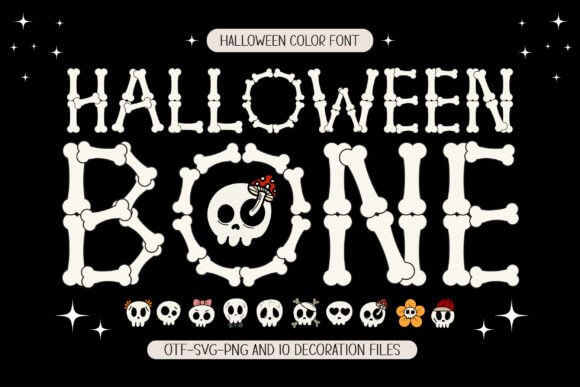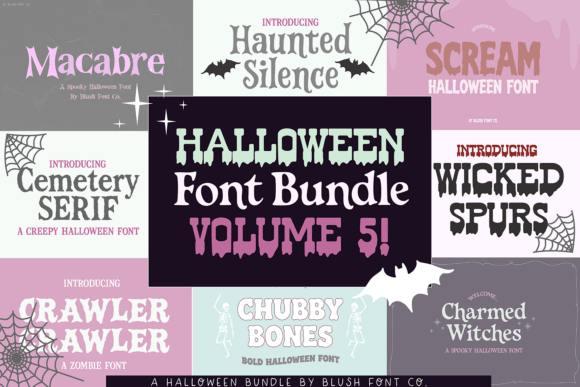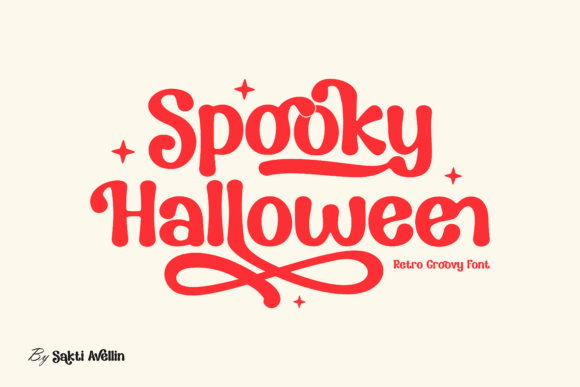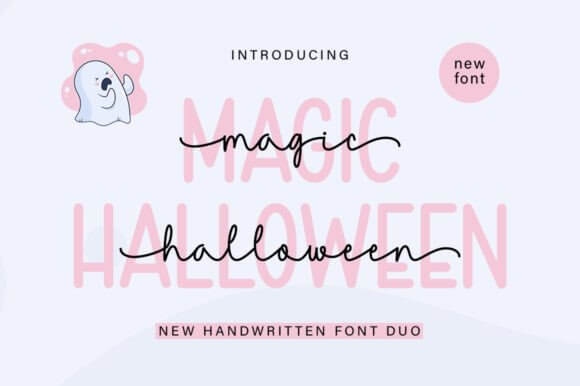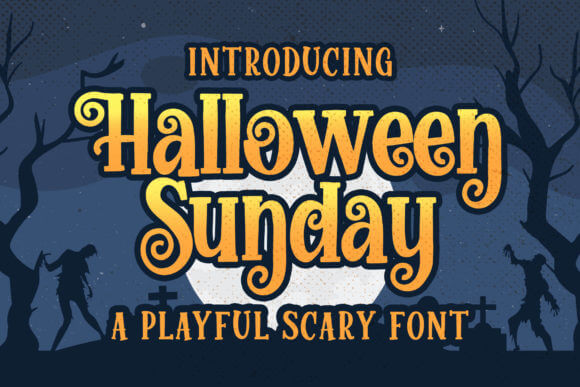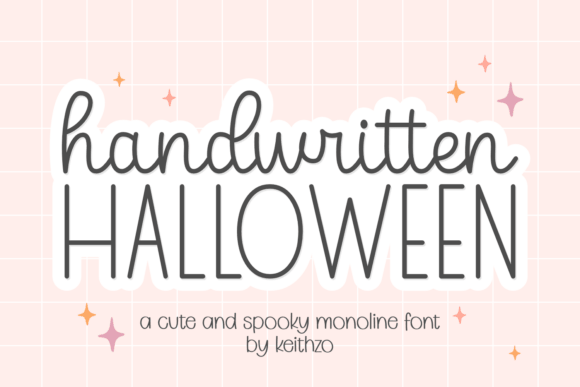
Picking halloween fonts sounds easy until your flyer looks cheesy, your mug design feels flat, and your treat tags disappear from three feet away. Type does the heavy lifting. It sets the scare level, the cute factor, the retro mood, even the whole tone of a product line before anyone reads a word. At Increobox, we pulled together 16 styles that cover bone lettering, drips, webbed details, groovy curves, handwritten notes, and old horror energy, so you can match the right alphabet to the right job fast. Some fit bold headers, some shine on stickers, party invites, classroom printables, or branding. If you want cleaner choices, stronger halloween typography, and fewer design regrets . . . start here.
Halloween Bone – Skeletal Display Font
Halloween Bone leans straight into the obvious gimmick, and honestly that is why it works. The bone-shaped forms give you a loud spooky display font for shirt slogans, party signs, and kid-friendly horror graphics where subtlety would just kill the fun. We would keep it for short words and big headers, because the novelty hits hard, fast, done.
Best Uses For This Font
- Bone Logo Headers – Make short brand names feel playful and weird.
- Haunted Favor Tags – Add instant theme to candy bags and small labels.
- Skeleton T-Shirt Art – Turn simple sayings into punchy apparel graphics.
- Spooky Menu Boards – Dress up party food signs without extra illustration.
Halloween Bundle Volume 5 – Mixed Font Set
If you hate choosing one style and moving on, Halloween Bundle Volume 5 fixes that headache. This halloween font bundle gives you room to build a whole seasonal set – social posts, sticker sheets, mugs, sale graphics – without everything looking cloned. We think bundles like this save time for busy shop owners, and yeah, October gets messy.
Best Uses For This Font
- Seller Shop Banners – Keep storefront graphics varied but still cohesive.
- Mixed Sticker Packs – Use different moods across one printable sheet.
- Trick-Or-Treat Print Sets – Build matching tags, signs, and inserts fast.
- Fast Social Graphics – Swap styles quickly for promos and countdown posts.
Spooky Halloween – Creepy Lettering Style
Spooky Halloween looks built for tension. The shapes feel sharp, restless, a little feral, which makes it a smart creepy lettering pick for covers, haunted event promos, or quotes that need bite. Let the letters breathe. Pack them too tight and the attitude starts to suffocate.
Best Uses For This Font
- Costume Party Posters – Push a darker mood before guests even read details.
- Horror Story Covers – Give indie books and zines an instant genre signal.
- Window Decal Designs – Create readable seasonal lettering for storefront glass.
- Ghost Tour Ads – Add edge to local event marketing.
Magic Halloween Duo – Enchanted Font Pair
Magic Halloween Duo gives you contrast right out of the gate, and that is gold when you need one font for the headline and one for the softer line below it. As a magical script pair, it fits branding kits, invitations, candle labels, or witchy packaging that wants charm, not gore. Less hunting, more designing. We love that.
Best Uses For This Font
- Witchy Brand Kits – Build logos and taglines with built-in variety.
- October Wedding Details – Style menus, vows, and signage with a romantic mood.
- Spellbook Invitations – Mix decorative names with readable event info.
- Boutique Candle Labels – Give products a mystical shelf presence.
Halloween Sunday – Retro Pumpkin Lettering
Halloween Sunday swings lighter and more nostalgic. It feels like old-school October merch, the kind of retro halloween typography that looks right on tote bags, market posters, and pumpkin patch graphics. If your project wants warmth with a wink, not full monster mode, this one makes the call easy.
Best Uses For This Font
- Pumpkin Patch Signs – Add a throwback feel to farm and fair graphics.
- Throwback Tote Prints – Make seasonal merch feel casual and collectible.
- Autumn Market Flyers – Bring charm to community event promotion.
- Fun Cupcake Toppers – Dress up party dessert tables with minimal effort.
Halloween Drama – Bold Horror Headline Font
Halloween Drama does not whisper. It lands like a trailer title, so if you need a horror poster font for bold promos, escape room ads, or spooky thumbnails, this one gets the point across in a second. Tiny text would waste it. Go big, go dark, let it snarl a bit.
Best Uses For This Font
- Fright Night Promo Art – Stop the scroll with oversized headlines.
- Escape Room Branding – Build pressure before the game even starts.
- Screamy YouTube Thumbnails – Add more drama to video covers and shorts.
- Dark Event Tickets – Give printed pieces a stronger theatrical feel.
Handwritten Halloween – Casual Spooky Script
Handwritten Halloween feels more personal, almost like someone scribbled a note on a candy bag and meant it. That softer energy makes it great for handwritten halloween quotes, gift tags, planner stickers, and custom names where rigid type feels cold. We like it when a design needs a human touch but still wants a little October weirdness.